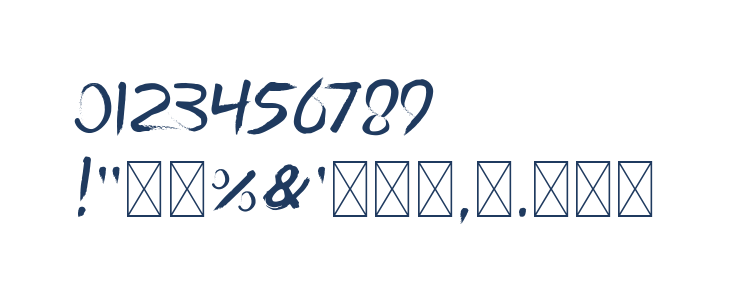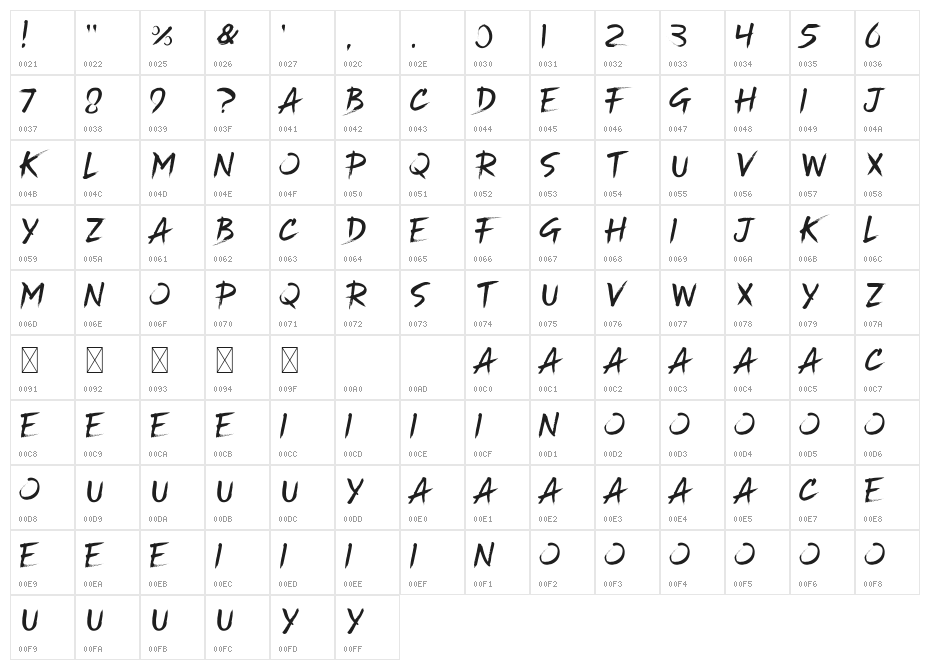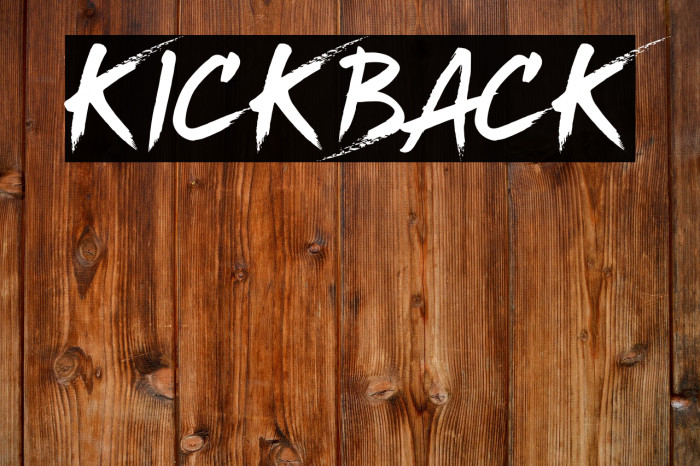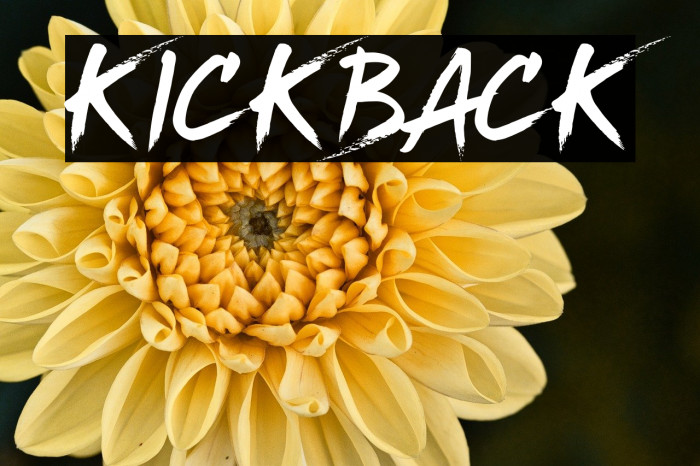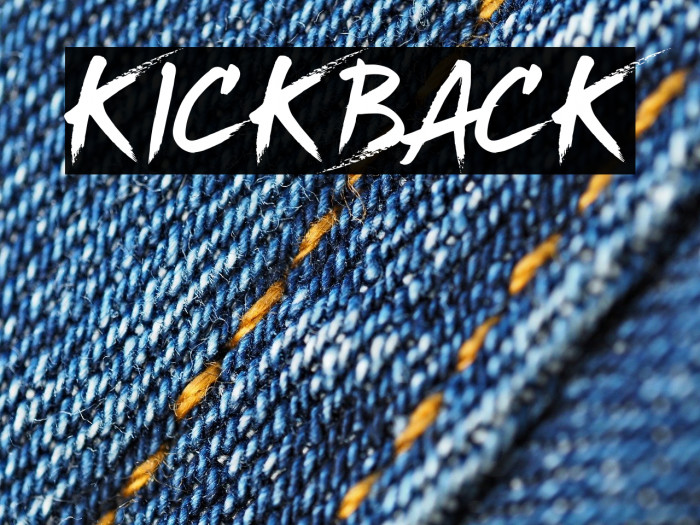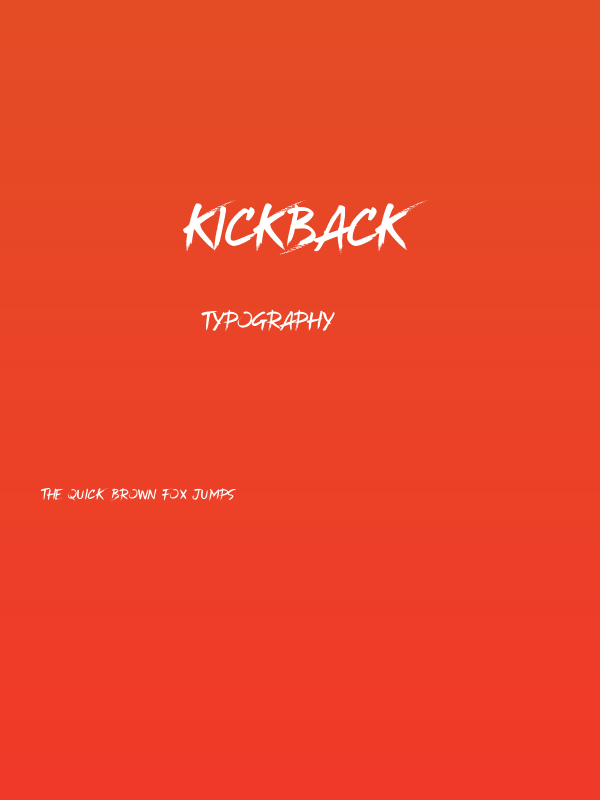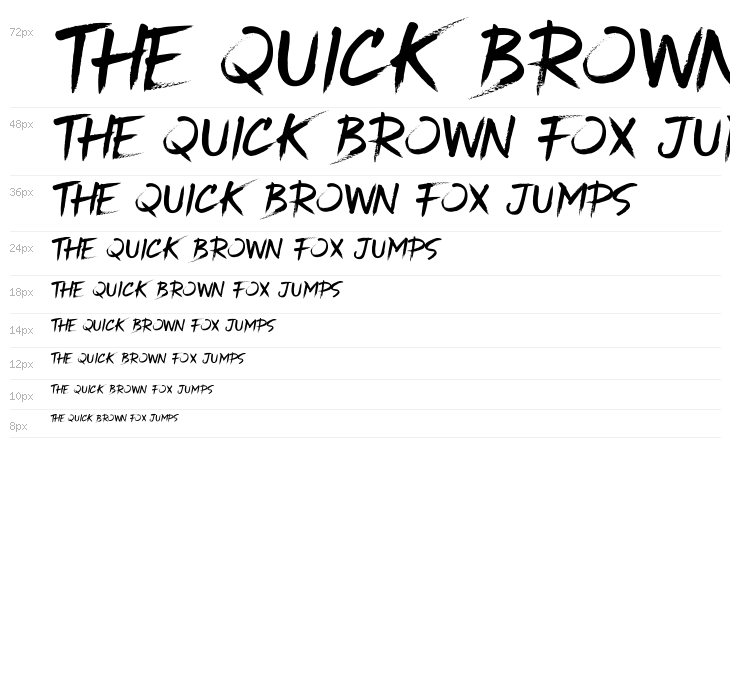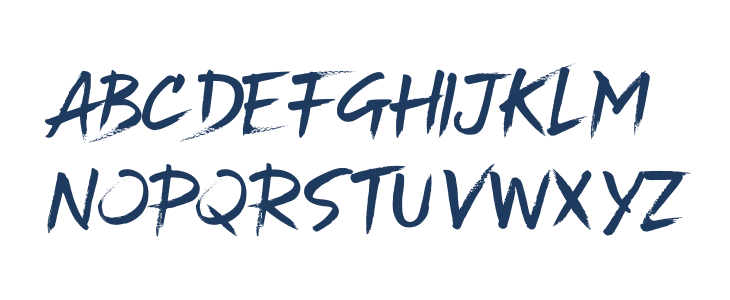
Kickback Font
Kickback Description
This font features a dynamic and energetic brush script style, characterized by its bold and expressive strokes. The letters have a hand-painted appearance, with varying thickness that adds a sense of movement and flair. The edges are slightly rough, giving it an authentic, handcrafted feel. The uppercase and lowercase letters maintain a consistent style, with the uppercase being more pronounced. Numbers and special characters follow the same energetic design, making the font versatile for various creative applications.